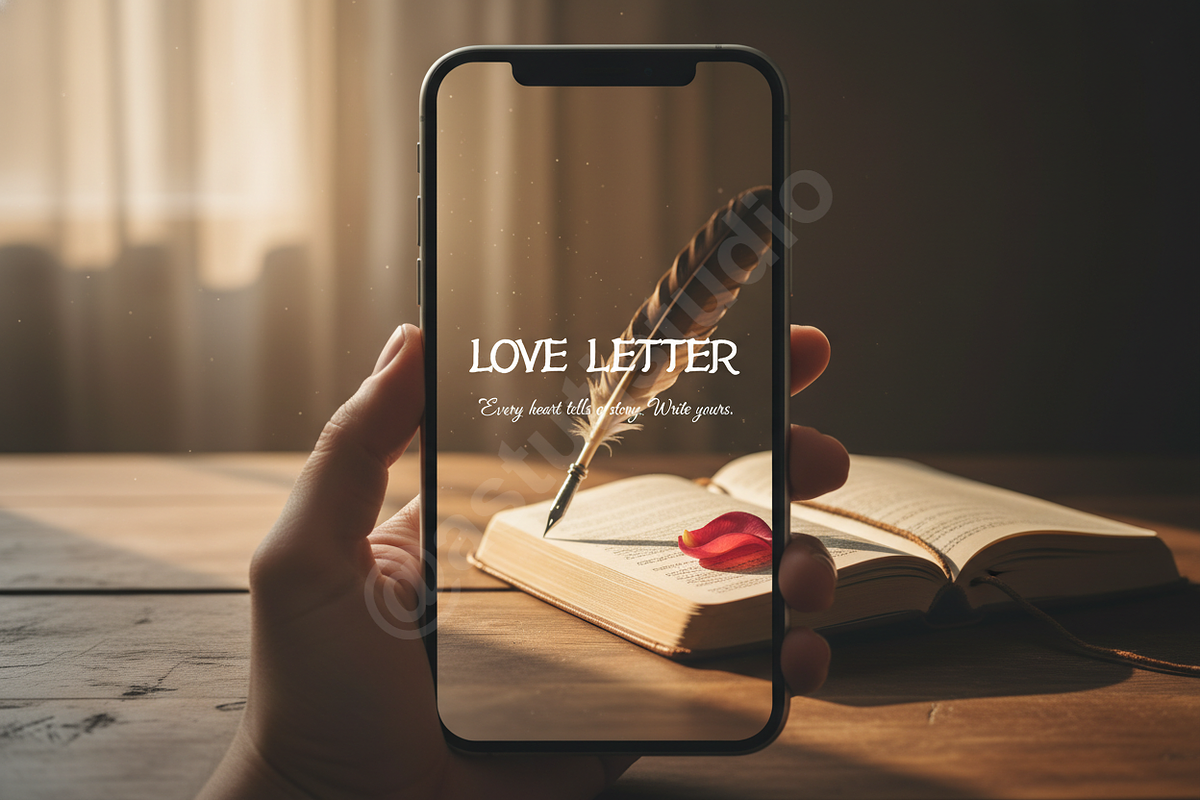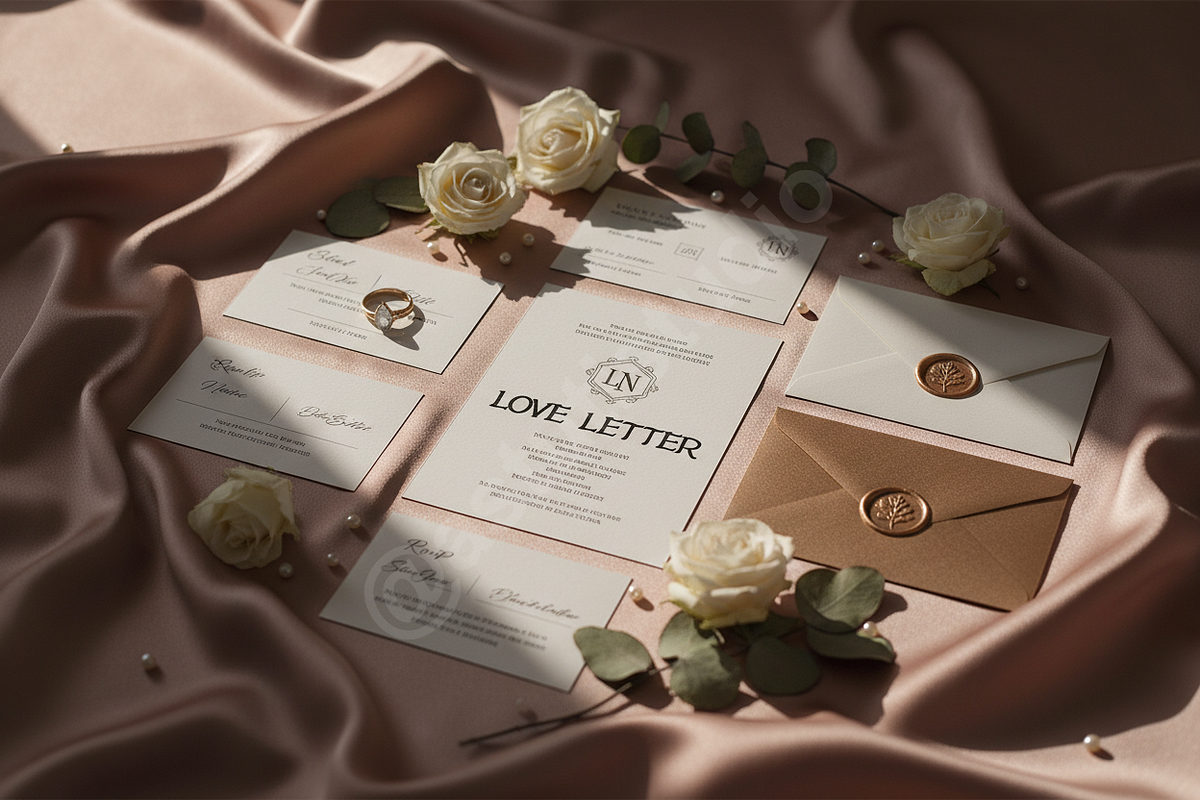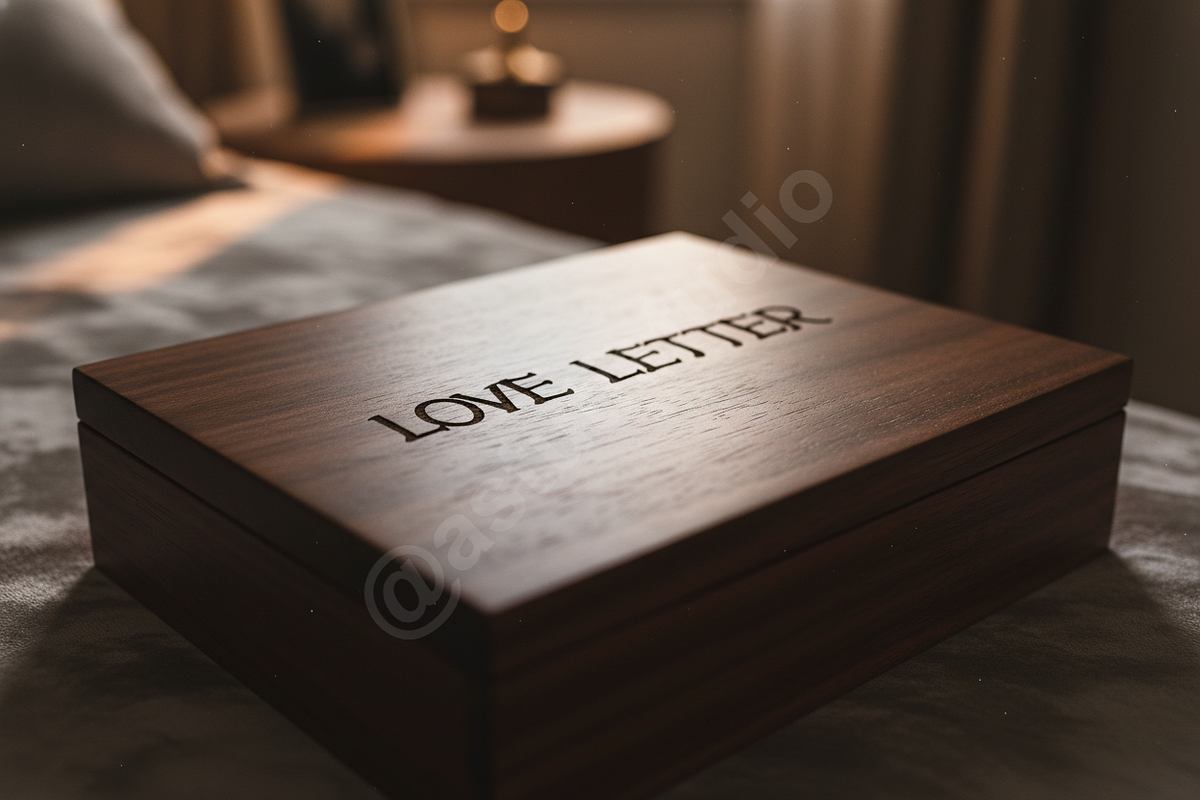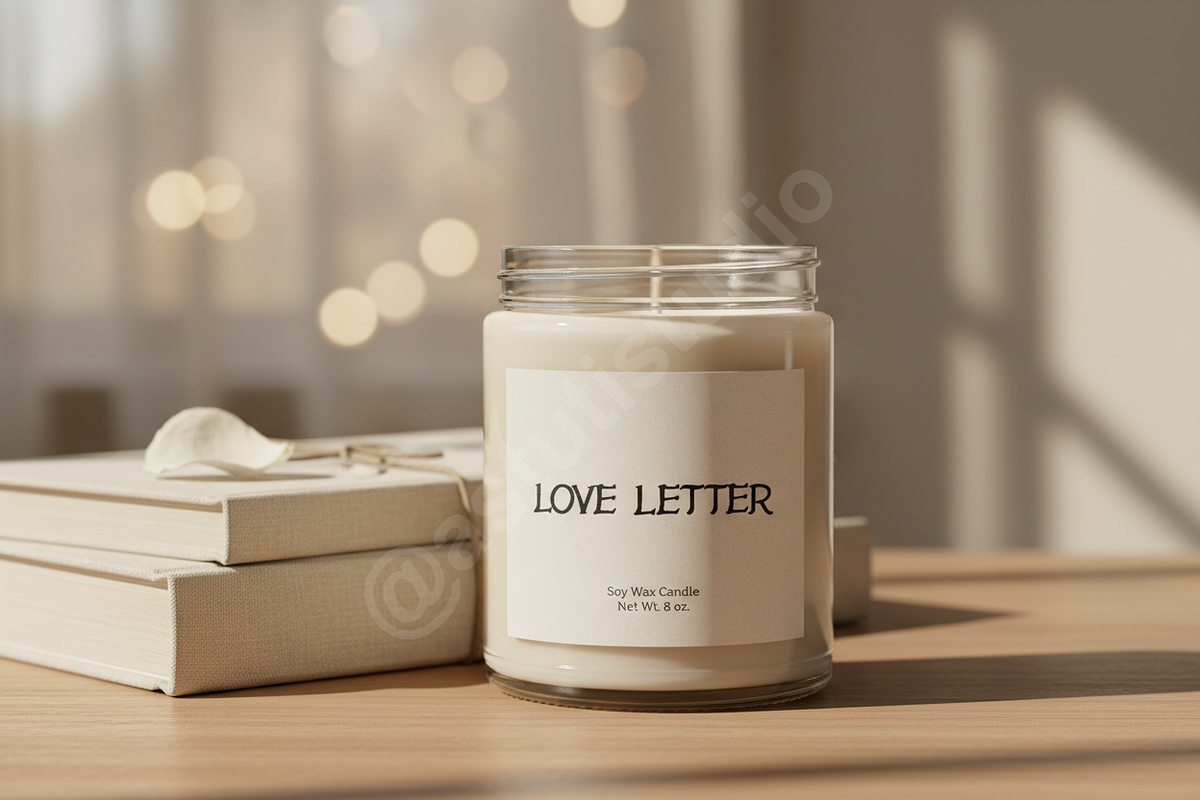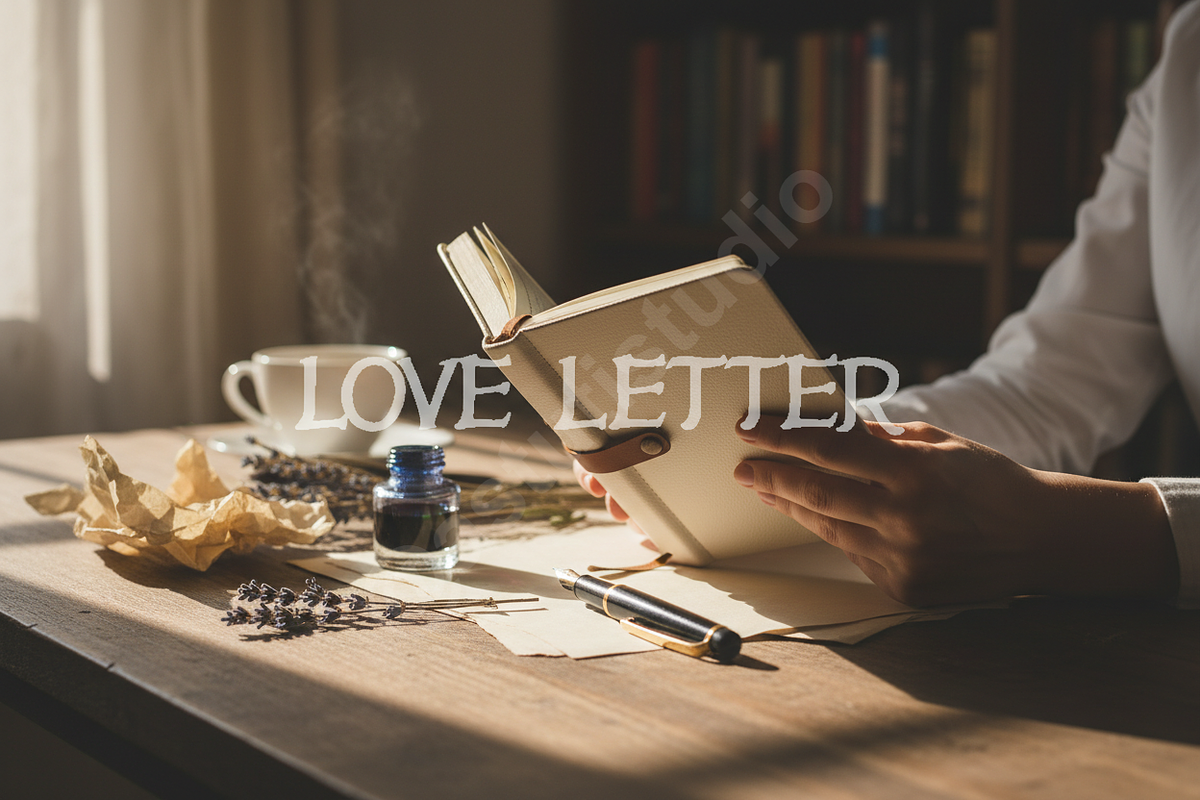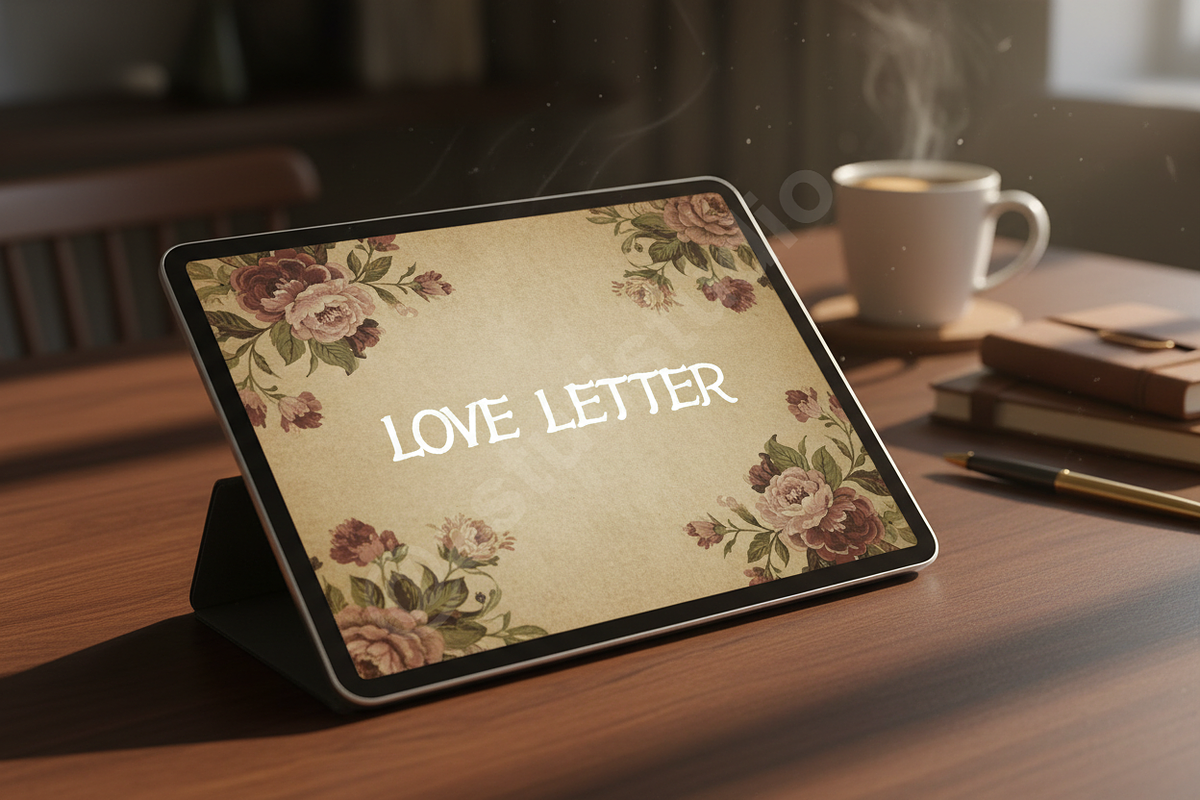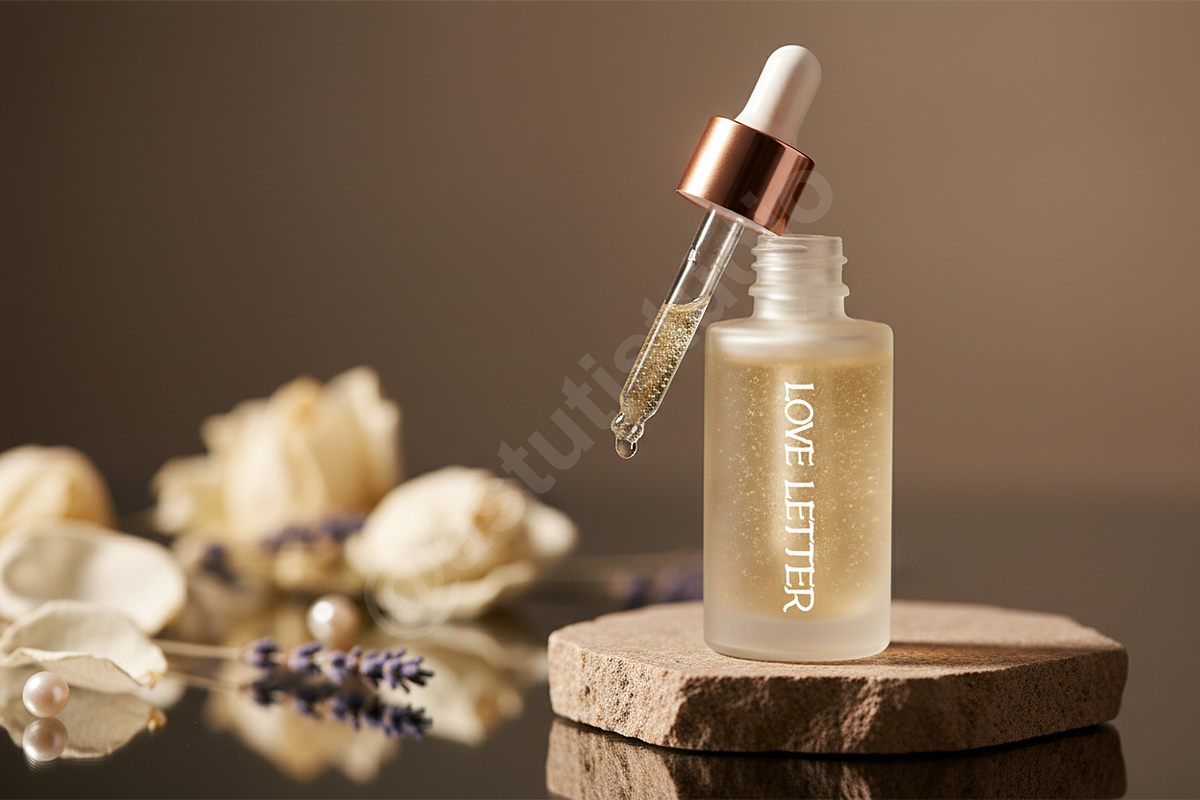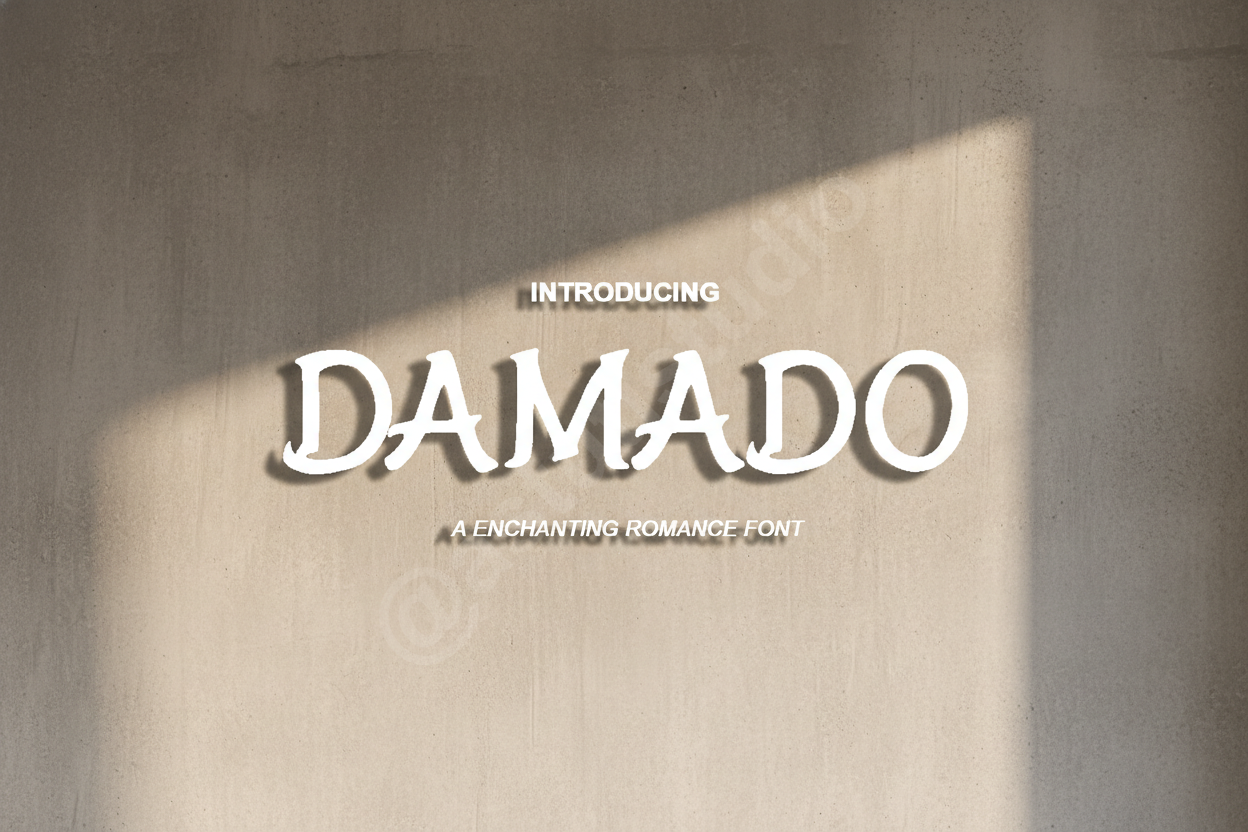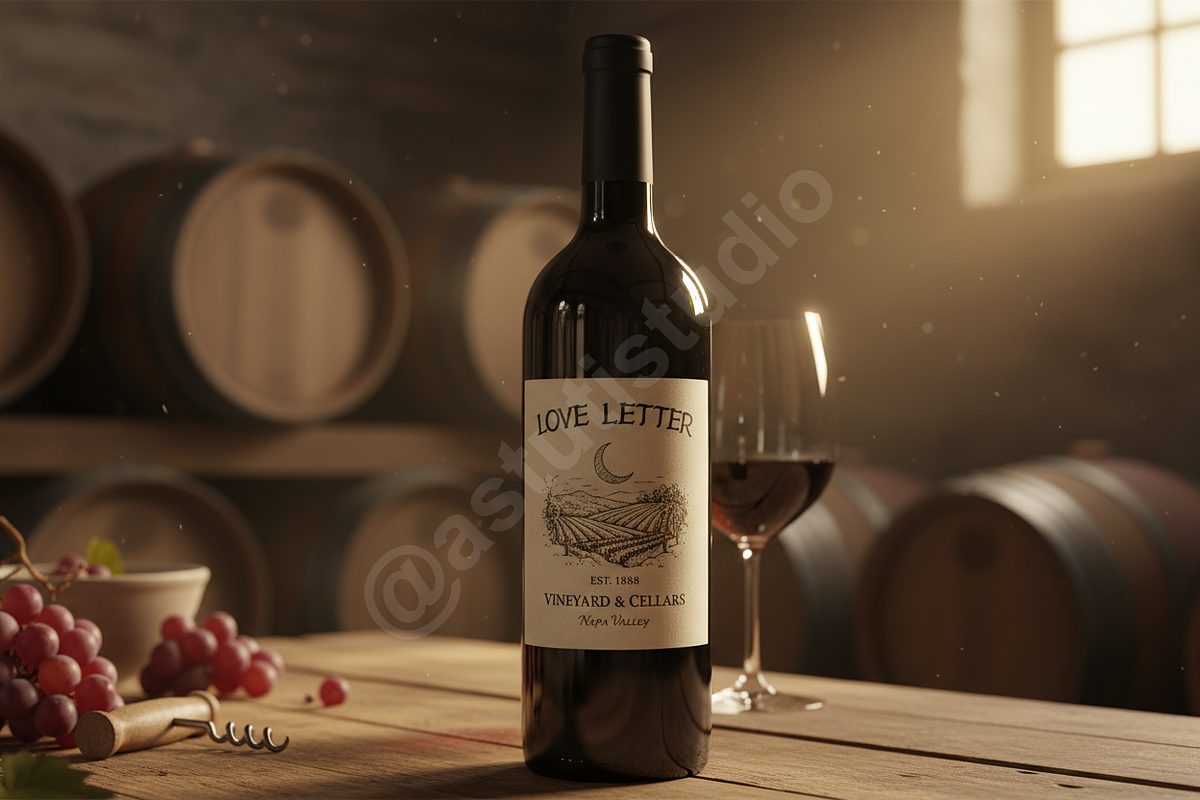
Damado Typeface - Elegant High-Contr
Introducing Damado, a sophisticated high-contrast serif typeface designed for the discerning creative. Damado encapsulates refined elegance, drawing inspiration from classic editorial typography while remaining perfectly tuned for modern digital platforms. It is the definitive choice for projects demanding unparalleled luxury, visual weight, and timeless design, making it essential for high-end luxury branding, prestigious editorial layouts, and impactful social media campaigns.
KEY FEATURES
- High-Contrast Design: Sharp, dramatic strokes ensure a powerful, exclusive visual impact.
- Versatility: Flawlessly transitions between bold headline usage and delicate body text in print.
- Extensive Glyph Set: Includes standard ligatures and stylistic alternates for rich typographic detail.
- Multilingual Support: Extended character set supports over 100 languages for global reach.
- Optimization: Clean vector paths and optimized kerning for flawless rendering at any size.